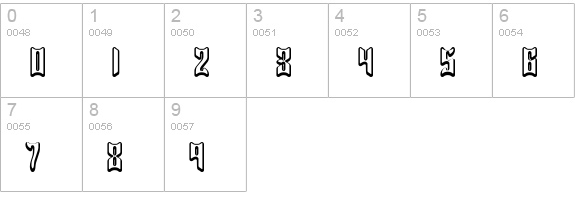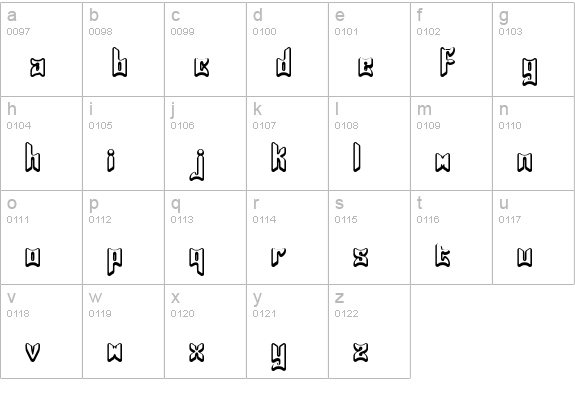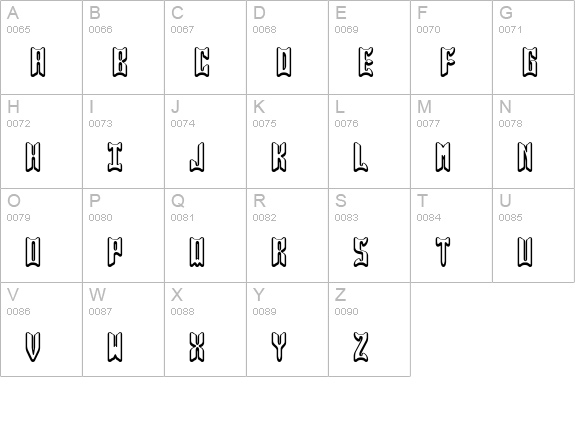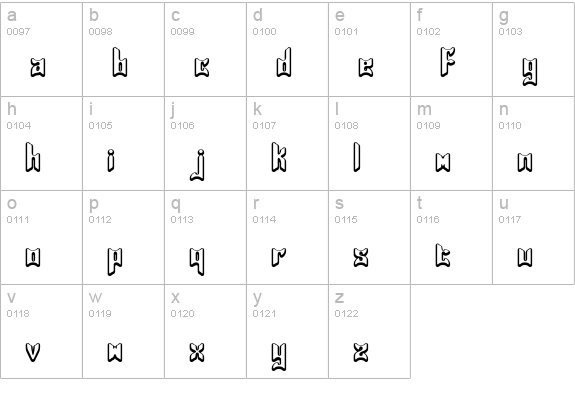
Jasper BRK Font Details
The Jasper BRK font is a stylish and modern typeface that exudes elegance and sophistication. Its clean lines and sharp edges make it perfect for a wide range of design projects, from logos to advertising materials. With its bold and eye-catching appearance, Jasper BRK is sure to make a statement wherever it is used. Best of all, this fantastic font is completely free to download at FontsMarket.com, making it easily accessible to all designers and creatives looking to add a touch of class to their work. Don't miss out on the opportunity to enhance your designs with the timeless appeal of Jasper BRK font today!